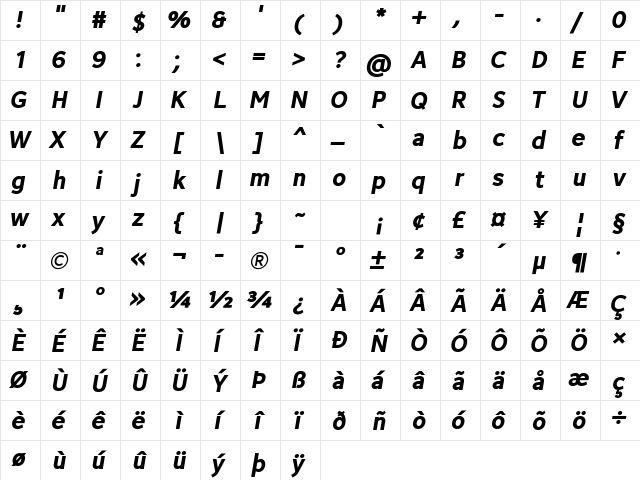
Avancement 2020 Bold Italic Font Preview
Design Context for Avancement 2020 Typeface
Avancement 2020 offers clean, dependable letterforms without strong stylistic allegiance, making it a practical choice for designers who need flexibility. Its italic angle brings a sense of urgency and motion to the letterforms. Its bold stroke weight gives it real presence on the page.
Pro Tip: Try Avancement 2020 for annotation and caption copy alongside an upright companion — the contrast in angle creates a dynamic but ordered typographic system.